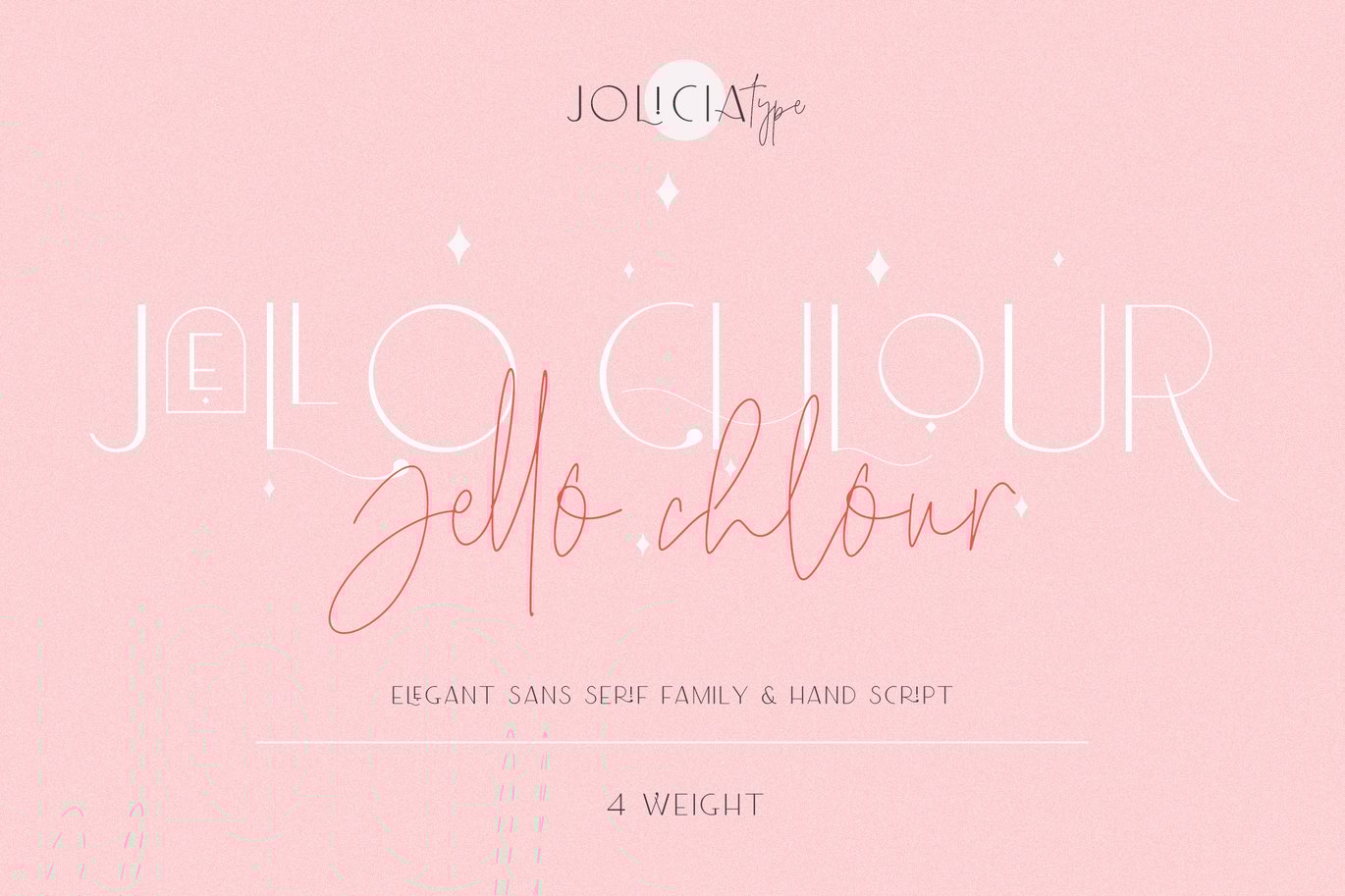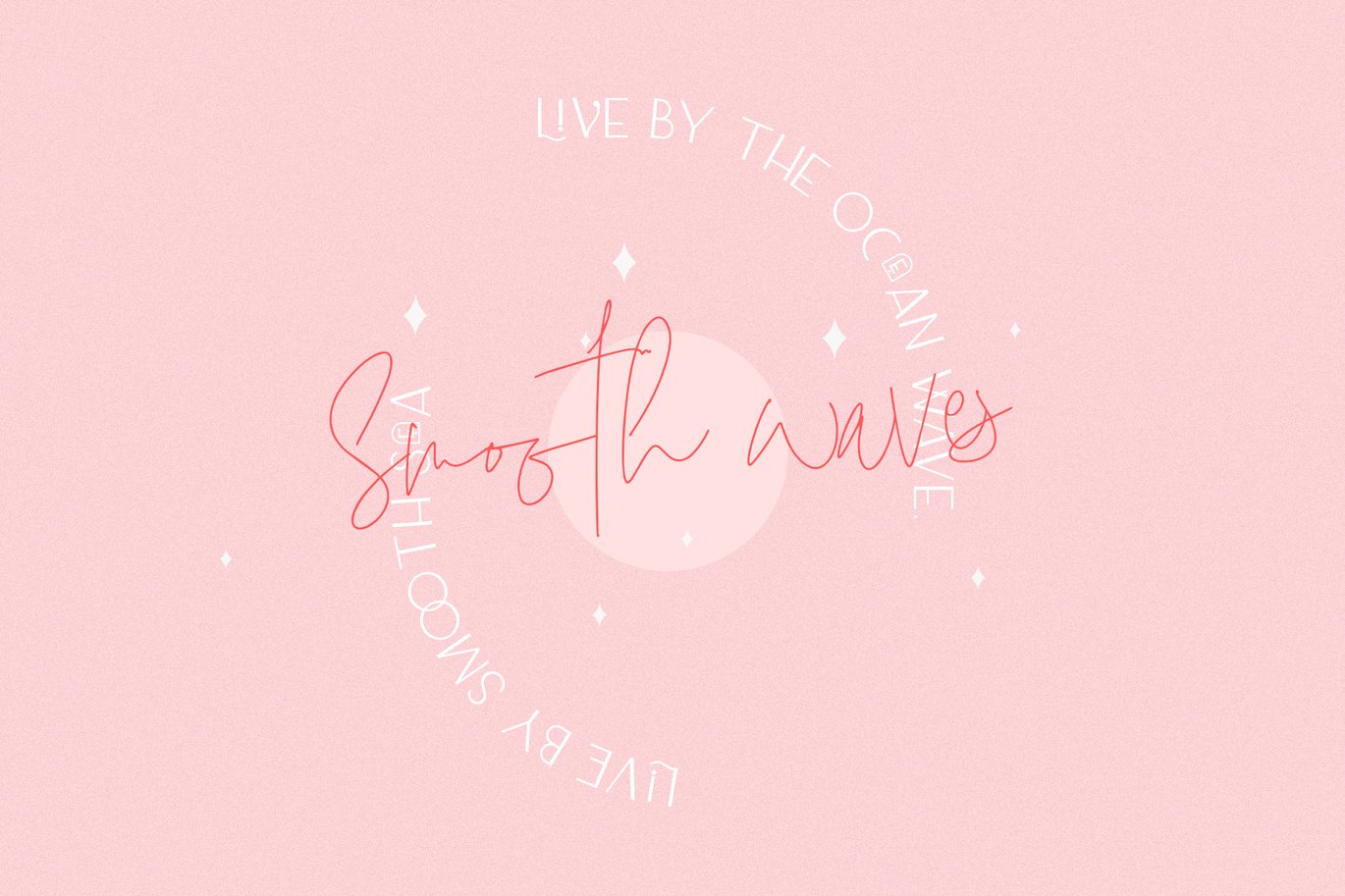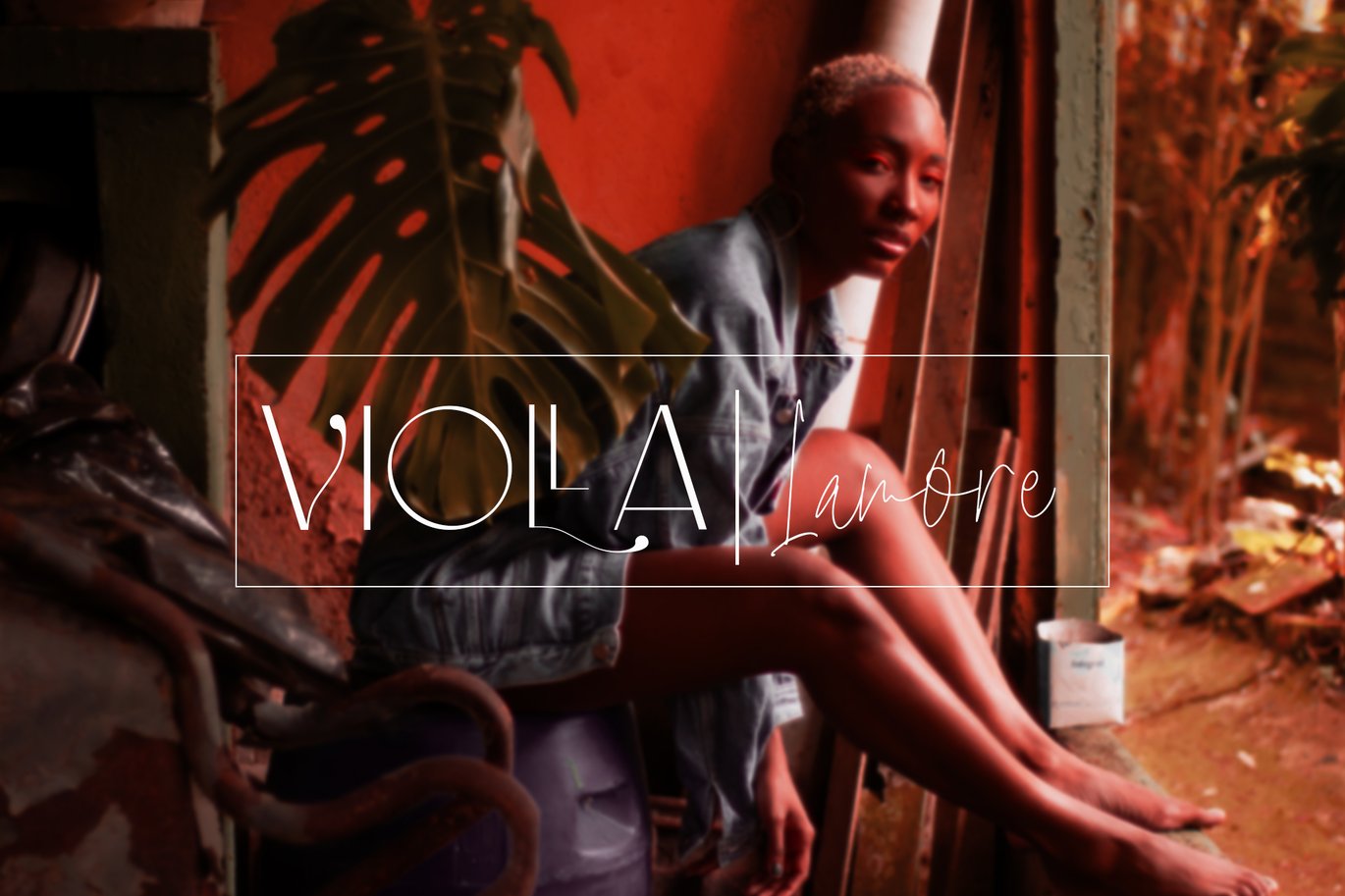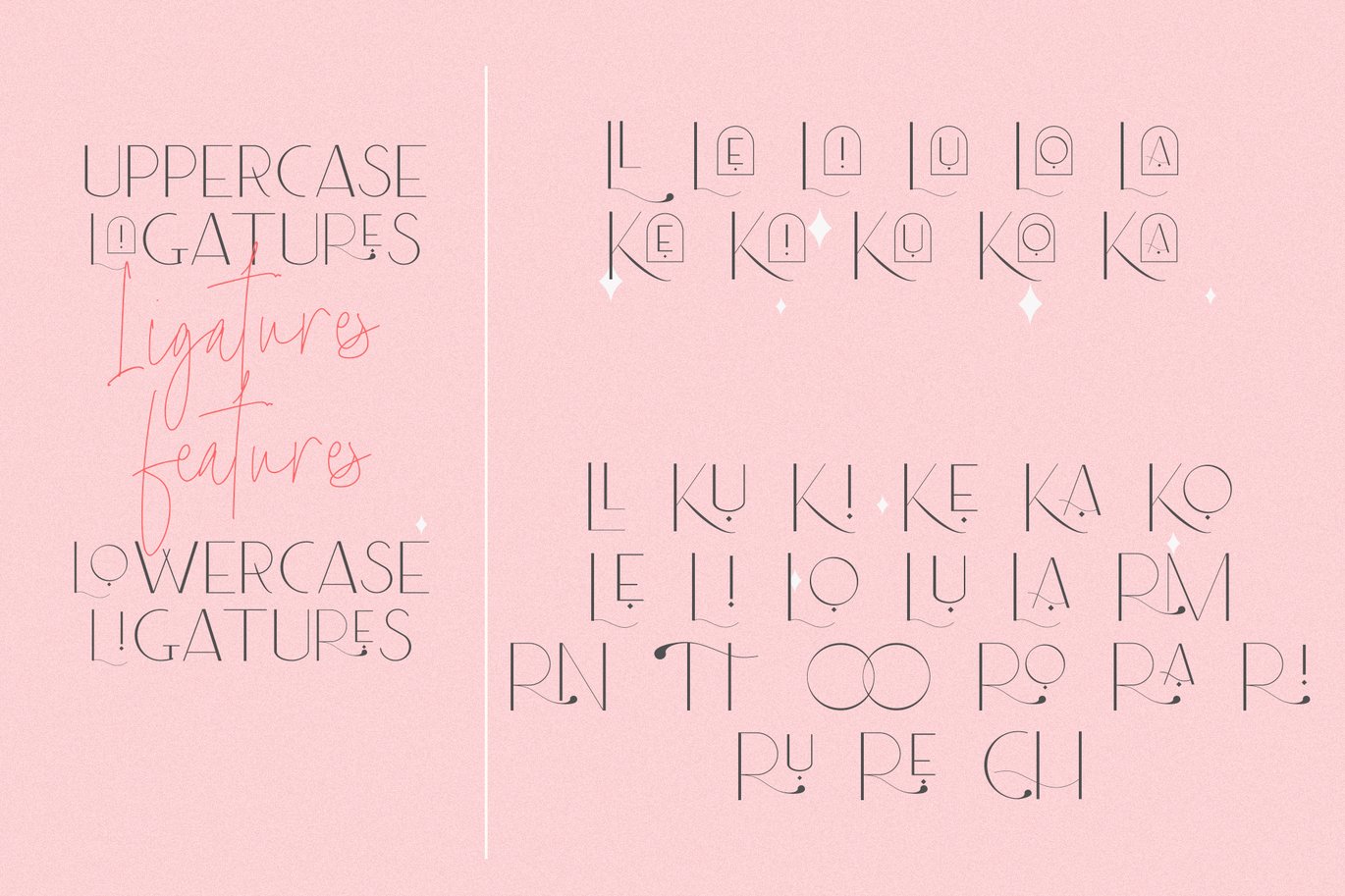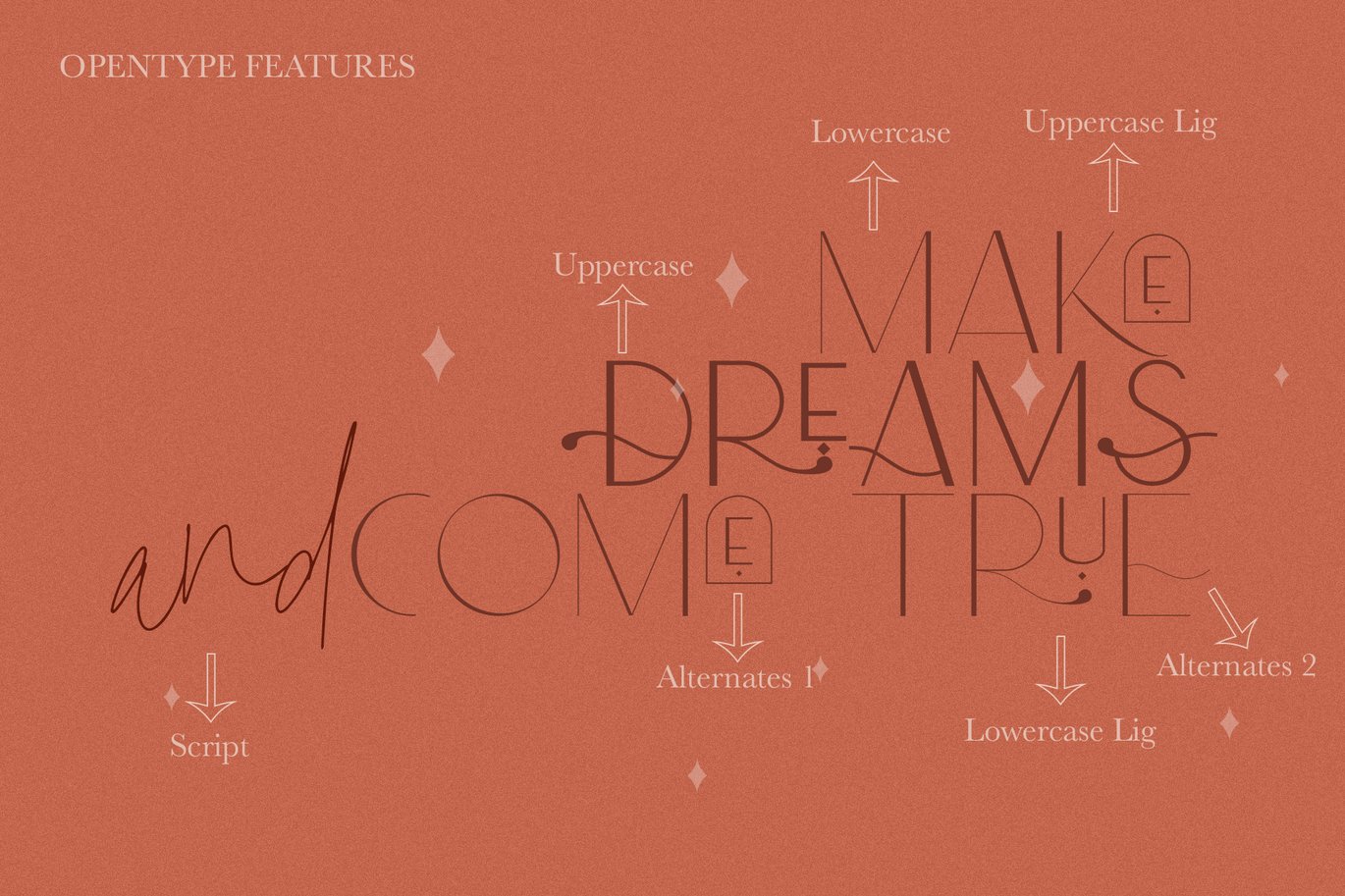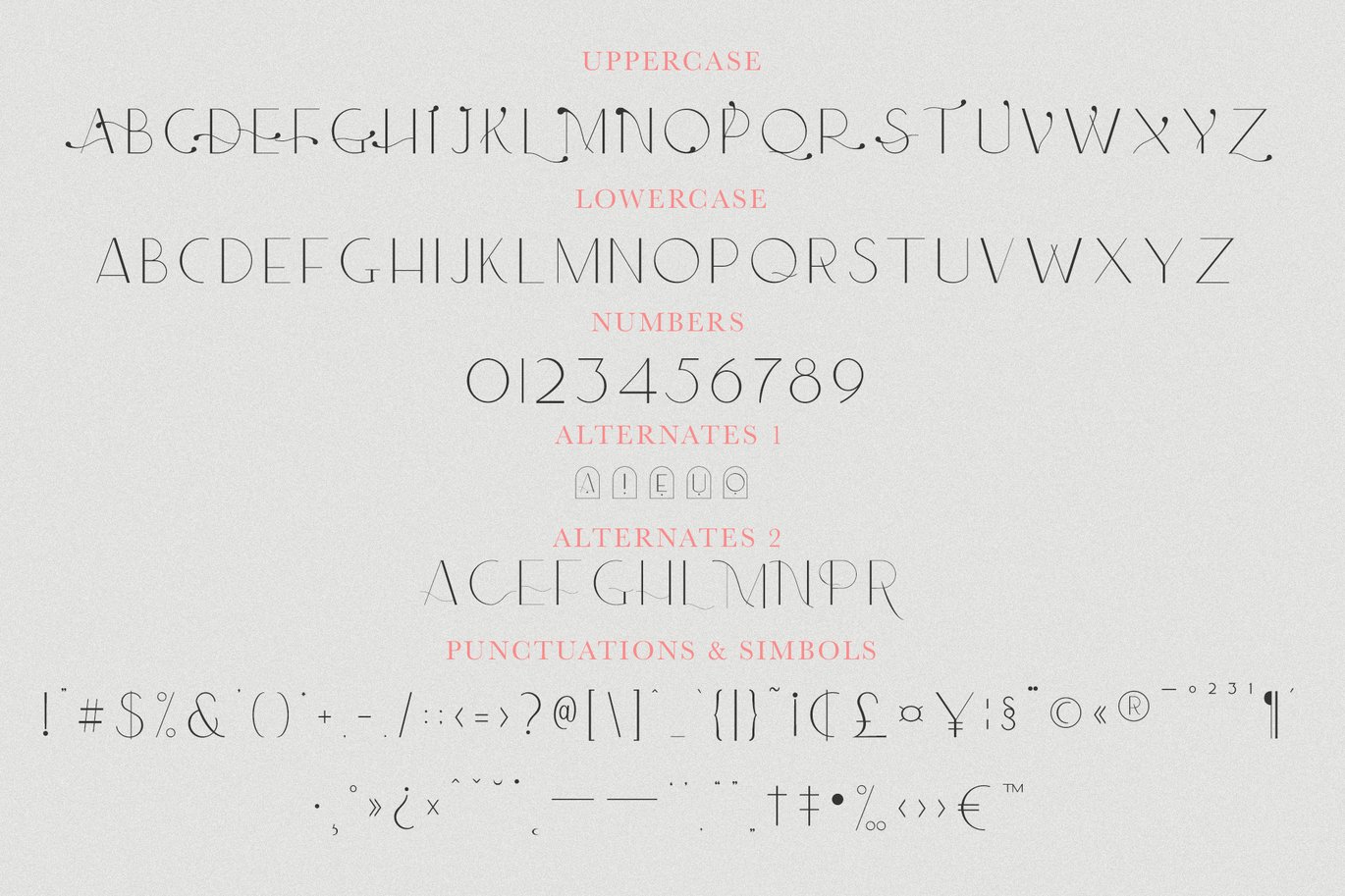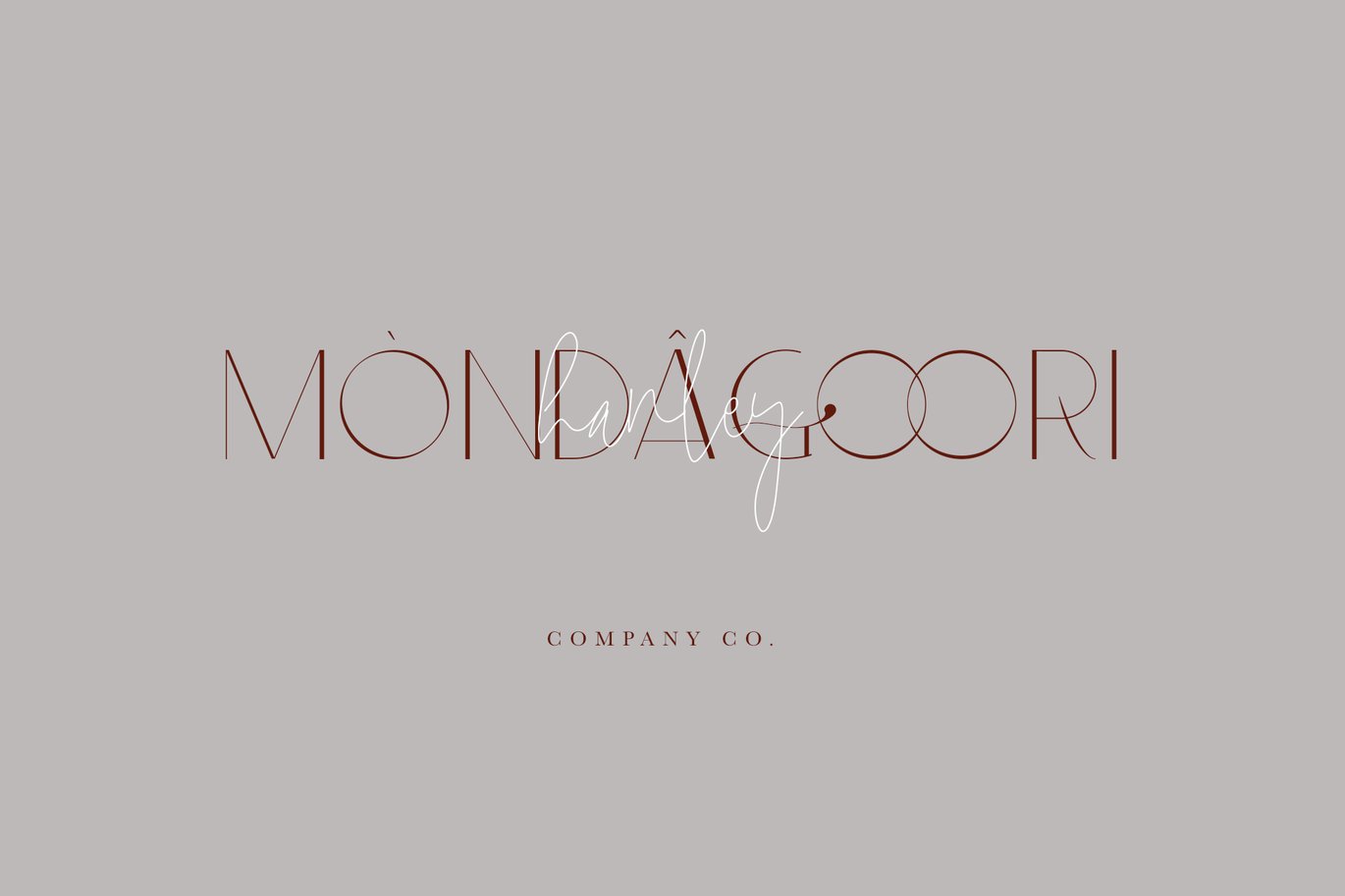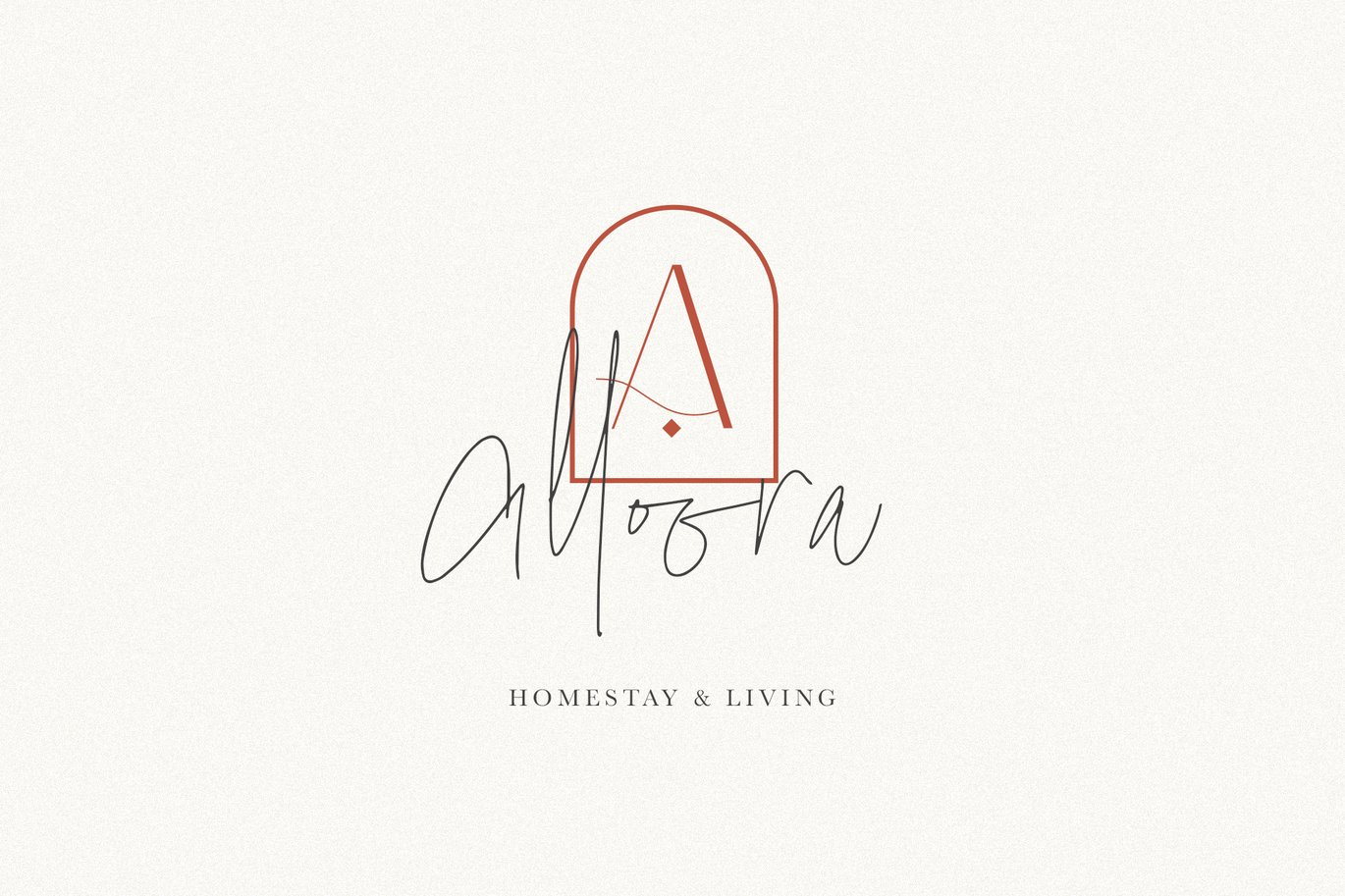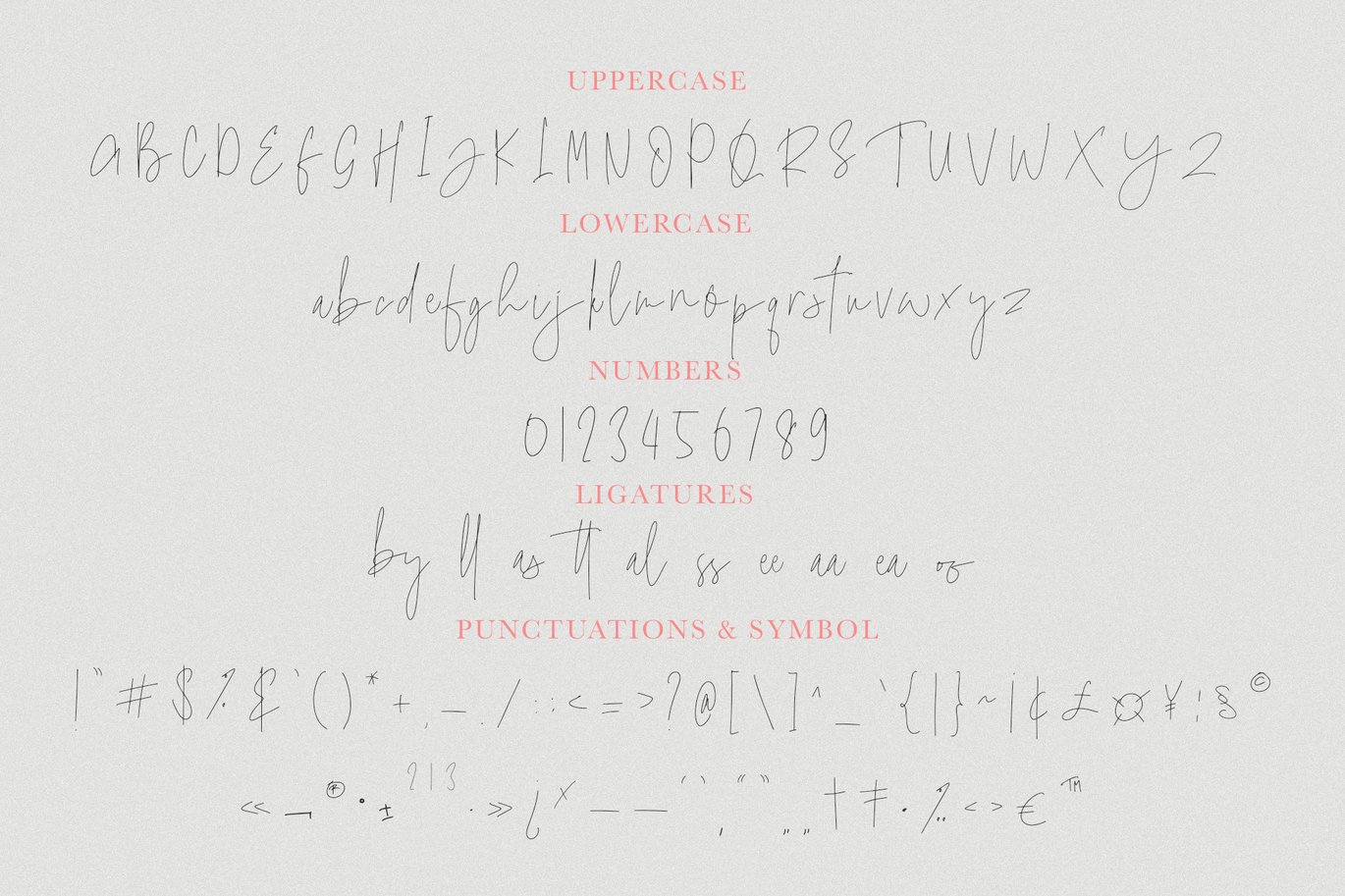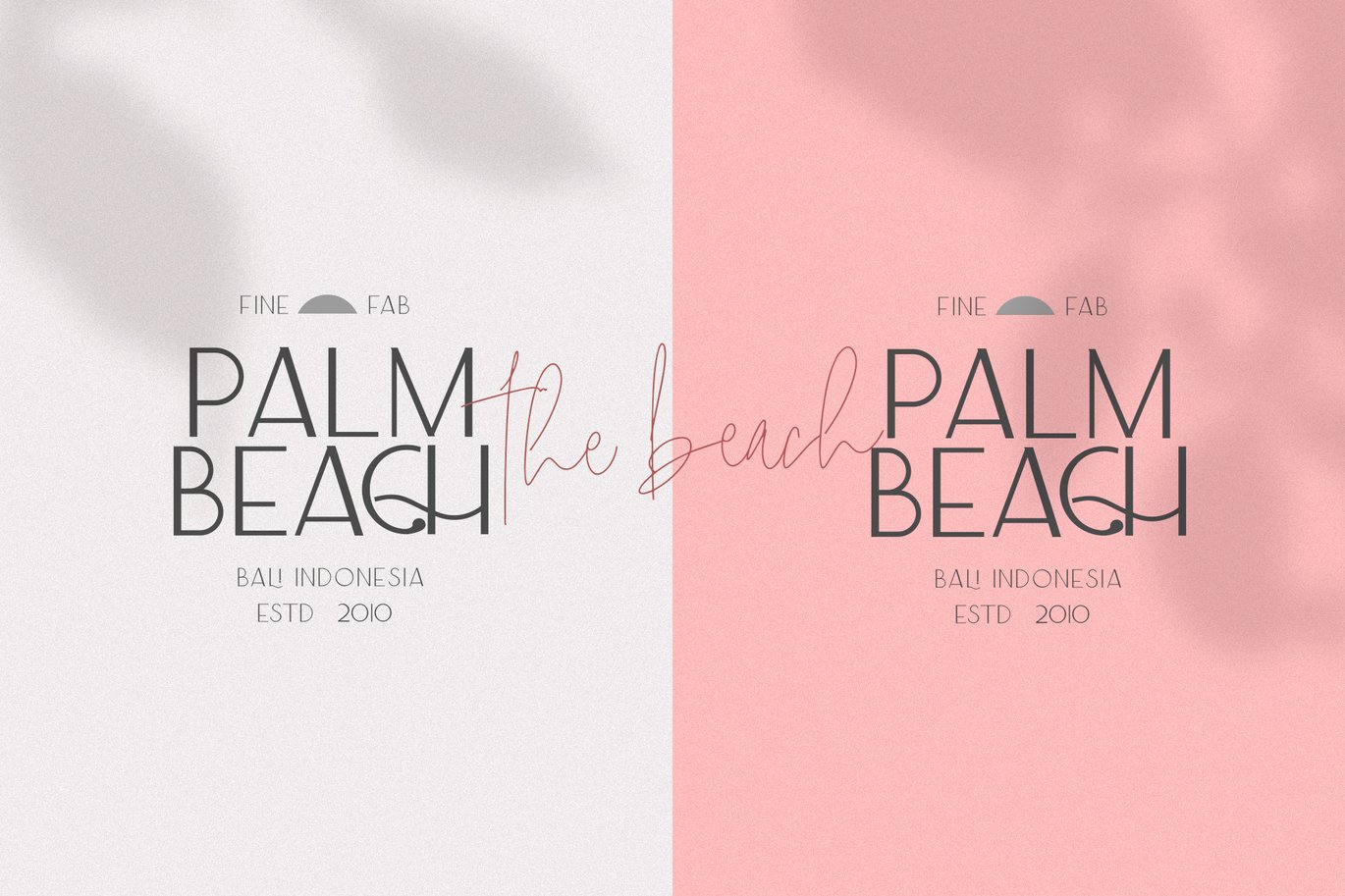
Jello Chlour | Girly font
“Jello Chlour ” with Modern Elegant Style this is perfect for branding, logos, invitation, masterheads and more.
Jello Chlour Features :
Jello Chlour – Characters Set
FEATURE
Jello Chlour – Light
Jello Chlour – Regular
Jello Chlour – Semi Bold
Jello Chlour – Bold
Jello Chlour – Script